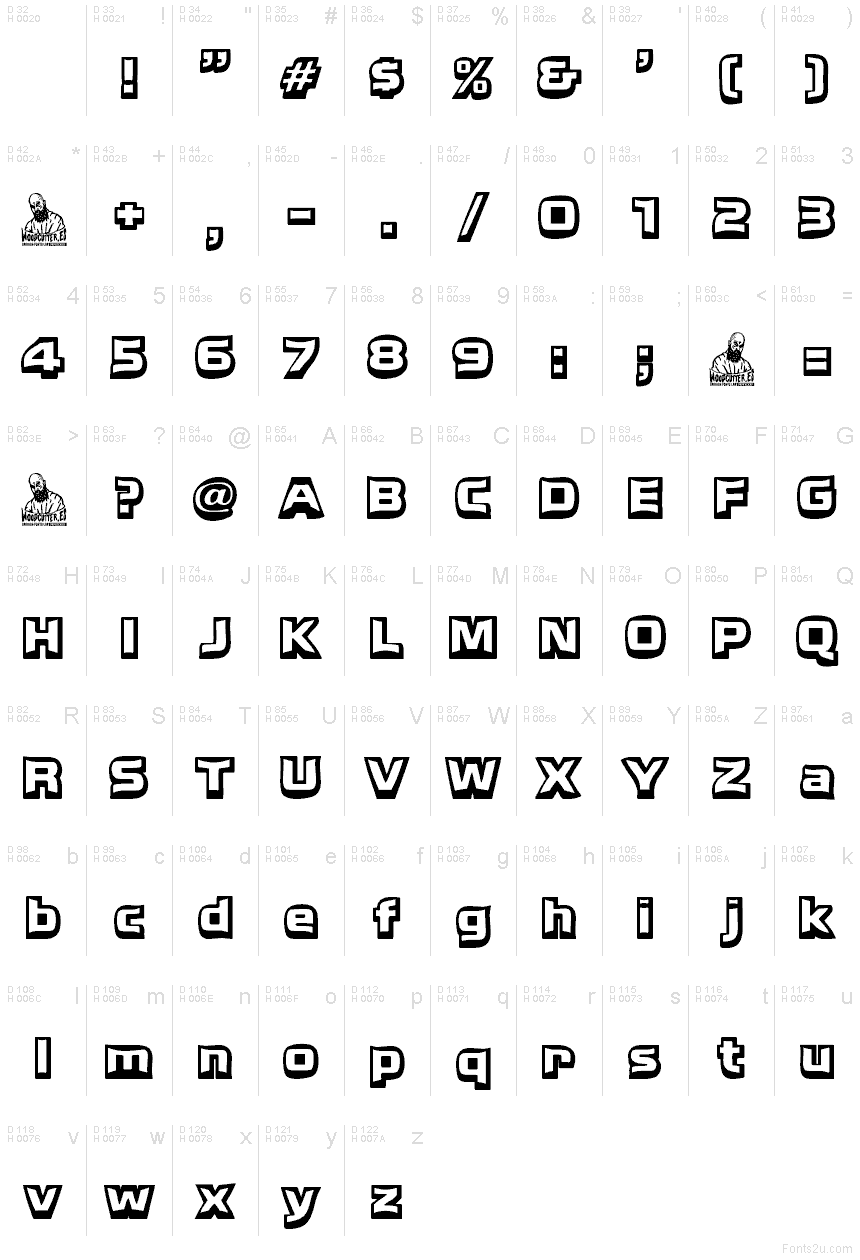
Chiringuito Espacial
Chiringuito Espacial font by Woodcutter is a free sci‑fi display typeface. Its chunky, rounded blocks and thick ink-black outline create a bold, sticker-like silhouette that reads instantly, even at a glance. The modular rhythm feels a bit arcade, a bit spaceport—solid, tactile, and built to punch through busy visuals without shouting.
Using Chiringuito Espacial, headlines snap into place for game logos, sci‑fi posters, event titles, YouTube thumbnails, tech packaging, and stickers or merch. The generous outlines keep letters separate in noisy compositions, while the rounded geometry gives everything a friendly, futuristic swagger. Pair this free font with a simple geometric sans for supporting text, and give it a touch of extra tracking at large sizes to let the shapes breathe.